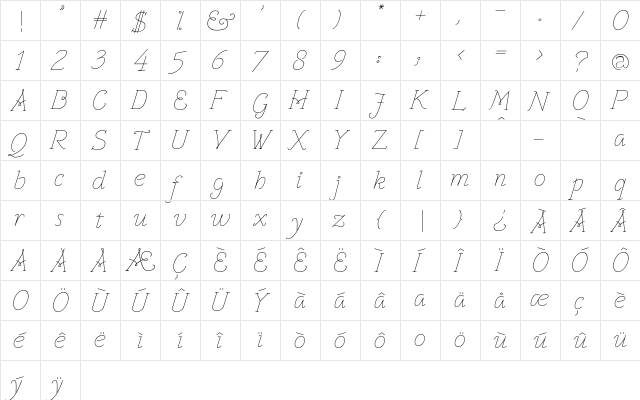
VTF Victorianna Thin Italic
| Foundry | Sastien Hayez |
| Designer | Sastien Hayez |
Design Context for VTF Victorianna Typeface
VTF Victorianna takes a measured approach to typography — its balanced proportions and neutral character make it a reliable workhorse for both digital and print work. The dynamic lean of this cut emphasises speed and emphasis in any layout. Its slender proportions lend an understated elegance to any composition.
Pro Tip: Use VTF Victorianna for emphasis, pull quotes, and subheadings where its slanted energy can add rhythm to the layout.